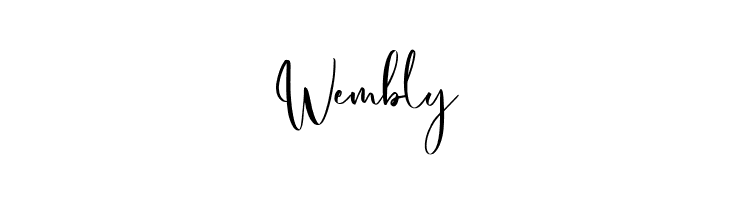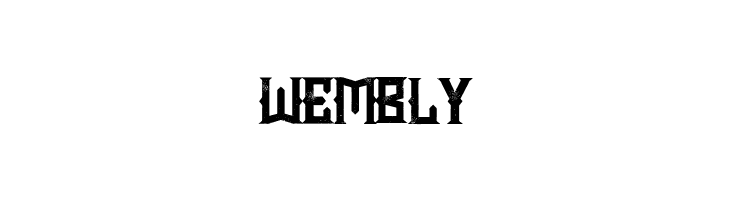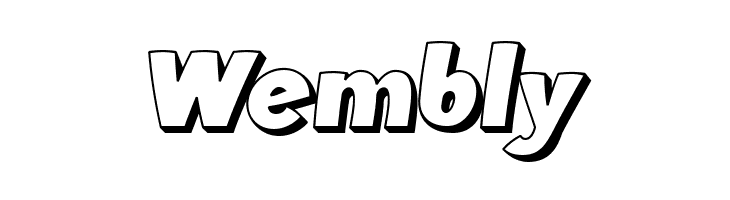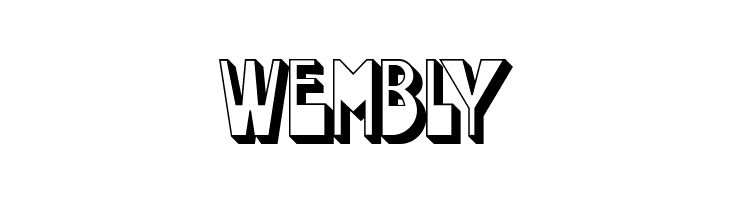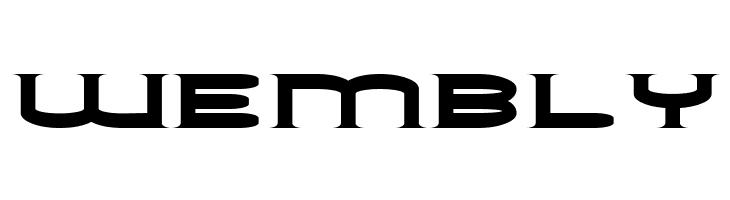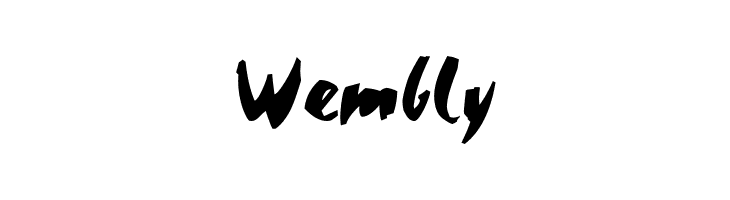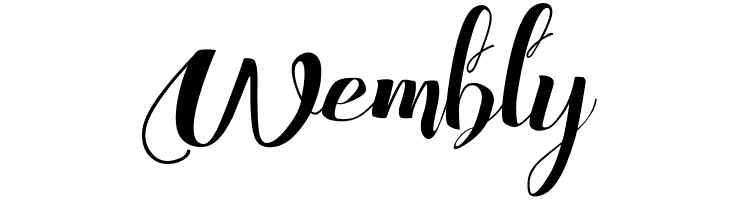
• Choc
A bold, dynamic brush script font with expressive strokes.
• Chock A Block NF
A bold, blocky font with uppercase letters enclosed in square borders, ideal for impactful designs.
• Chocolate Drops NF
A bold, retro-style font with a 3D shadow effect.
• Chocolate Heart Free
An elegant script font with ornate, flowing letterforms and decorative flourishes.
• ChocolateStoryFreePersonalUse-S
• Choker
A bold, modern font with a futuristic and geometric design.
• Cholasette Free Regular
A dynamic and expressive handwritten font with fluid, flowing letterforms.
• Chomiqy free version Regular
A bold, playful font with exaggerated, uneven strokes for a whimsical look.
• Chopic 3D Free version Regular
A bold, 3D font with a playful, dynamic style and shadow effect.
• Chopper City
A bold, distressed font with a gritty, urban style.
• Chris's Handwriting
• Christian Crosses
A decorative symbol font with diverse Christian cross designs.
• Christian Crosses II
A symbol font with diverse Christian cross designs and religious motifs.
• Christian Crosses III
A decorative symbol font with numerous Christian cross variations.
• Christian Crosses IV
A symbol font with diverse Christian cross designs and religious motifs.
• Christian Crosses V
A symbol font with diverse Christian cross designs.
• Christian Icons B Monograms
A bold, blackletter font with Christian monograms and symbols, ideal for historical themes.
• ChristianInitials
An ornate, medieval-style decorative font with intricate illustrations.
• Christmas
A festive serif font with snowflake embellishments, ideal for holiday themes.
• Christmas Cove Free
A playful and whimsical font with smooth, flowing lines and slightly irregular shapes.
• Christmas Farmhouse